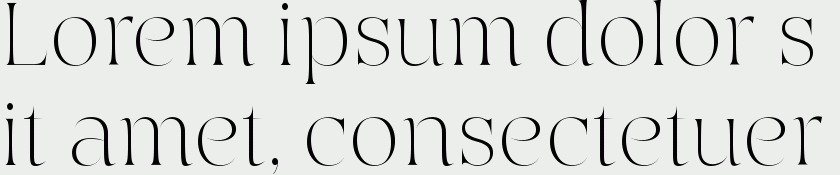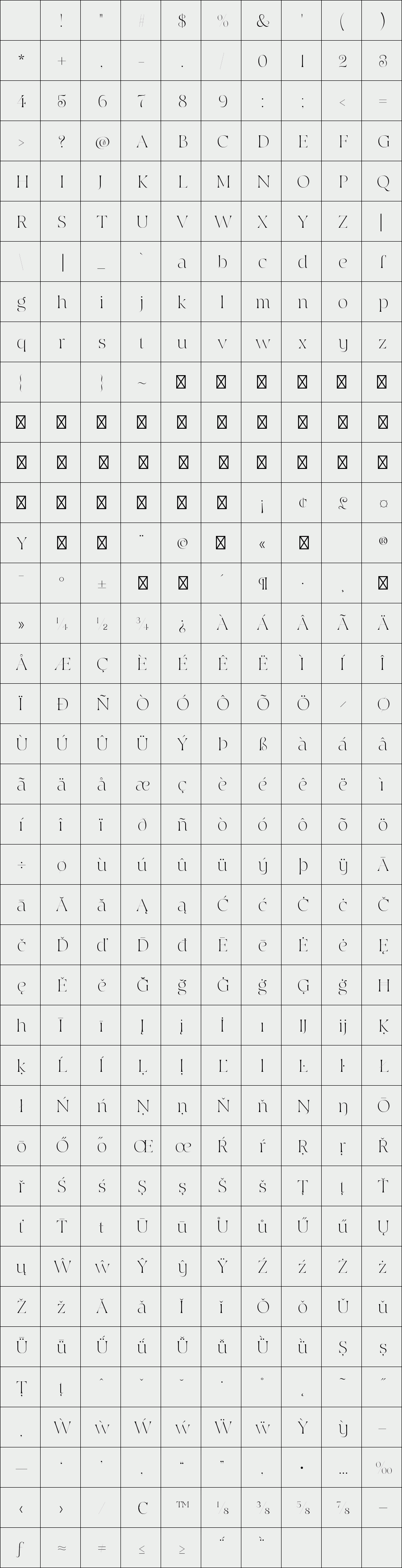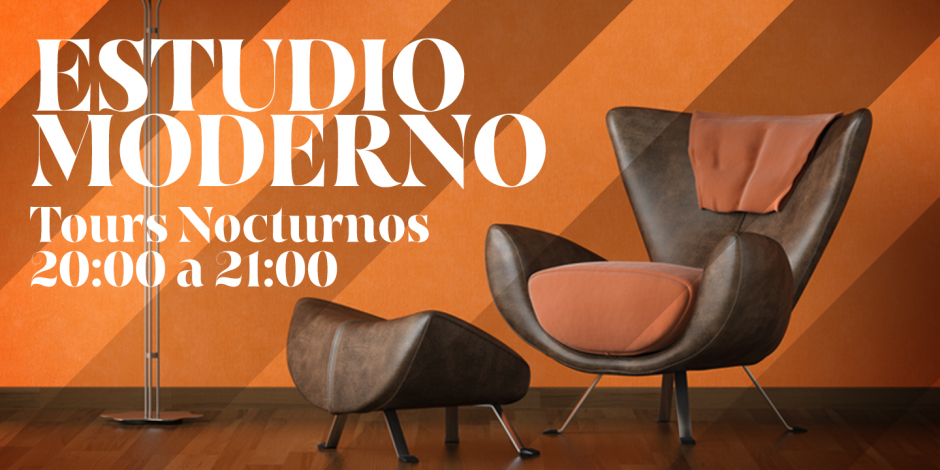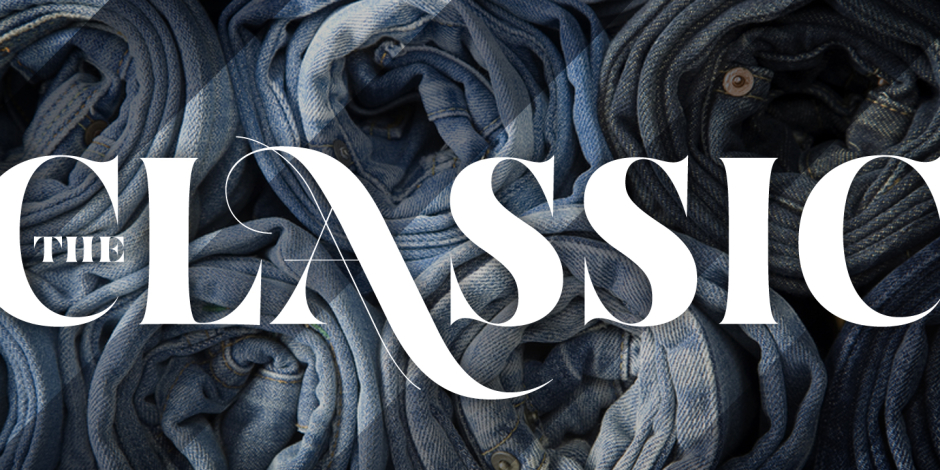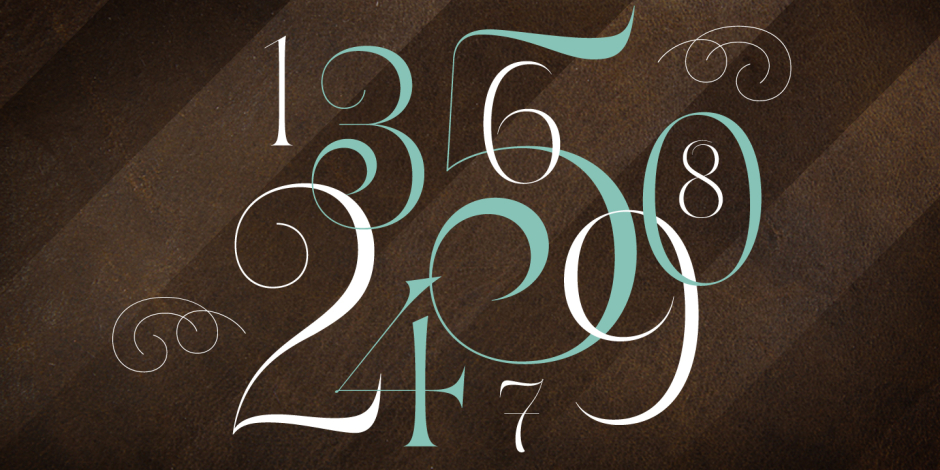
Hoban
/ Hoban Light
The light and the bold. The thick and the thin. Laverne and the Shirley. Peanut Butter and the Jelly.
Hoban is about contrast. Hoban wants to be noticed, but only after a second glance. A friend of a friend
to the didones, it has smaller, tapering serifs, slightly calligraphic traits, and spindly little terminals that
go where they please.
It’s a headline face. Period. Set it big and bold. Or light and airy. But preferably next to something with flair. Cuff links, canapés, or corvettes–it’s up to you. Distinct ligatures, ornaments, and swashy alternates provide plenty of character to tailor your style.
Hoban is about contrast. Hoban wants to be noticed, but only after a second glance. A friend of a friend
to the didones, it has smaller, tapering serifs, slightly calligraphic traits, and spindly little terminals that
go where they please.
It’s a headline face. Period. Set it big and bold. Or light and airy. But preferably next to something with flair. Cuff links, canapés, or corvettes–it’s up to you. Distinct ligatures, ornaments, and swashy alternates provide plenty of character to tailor your style.